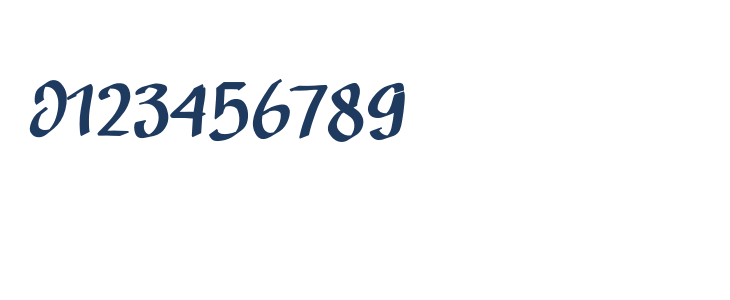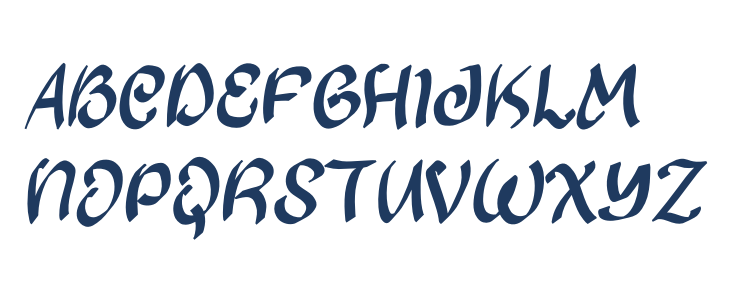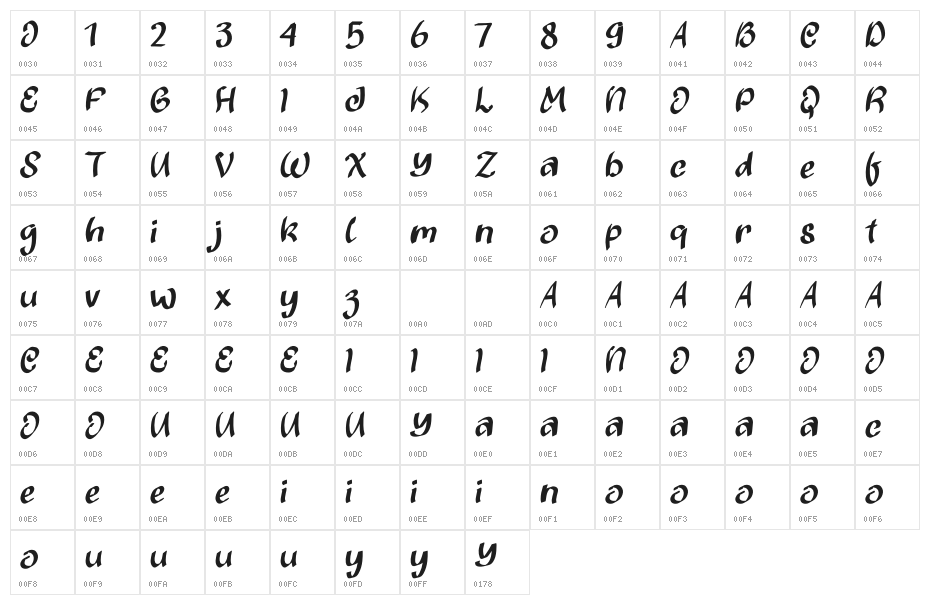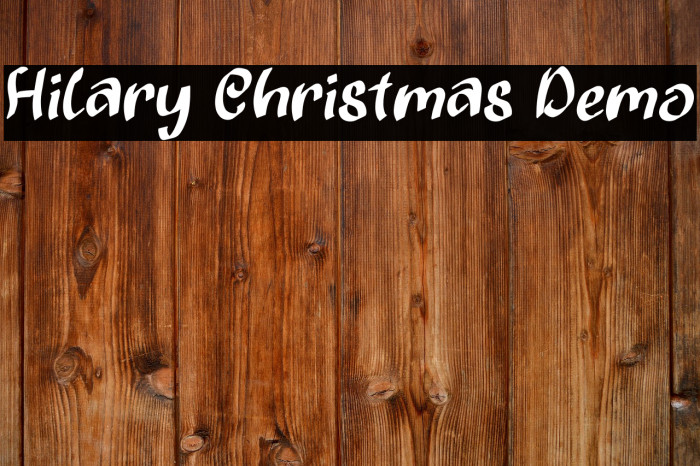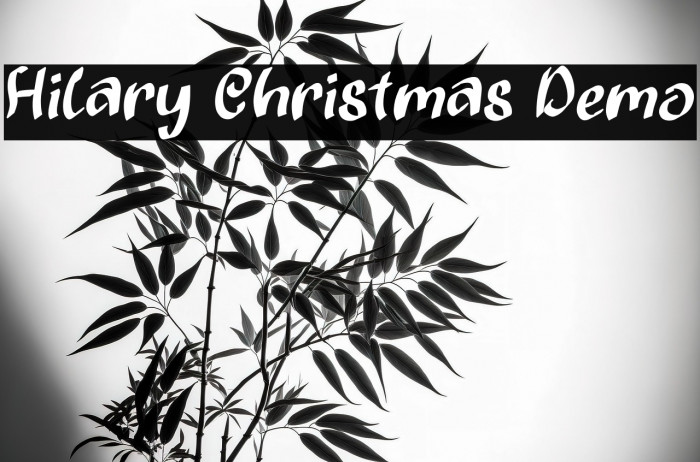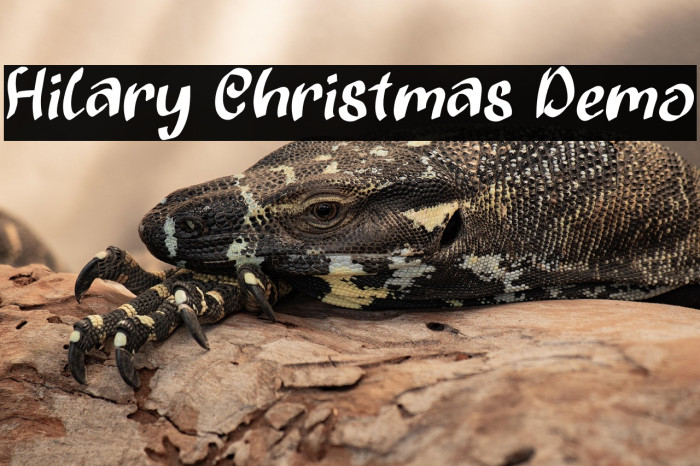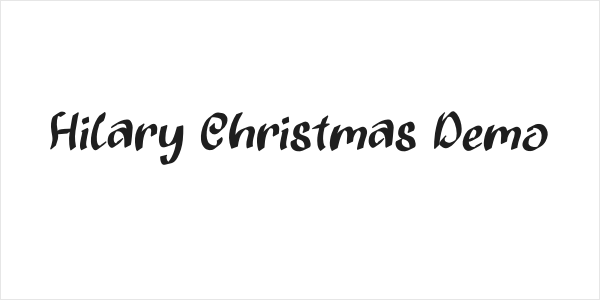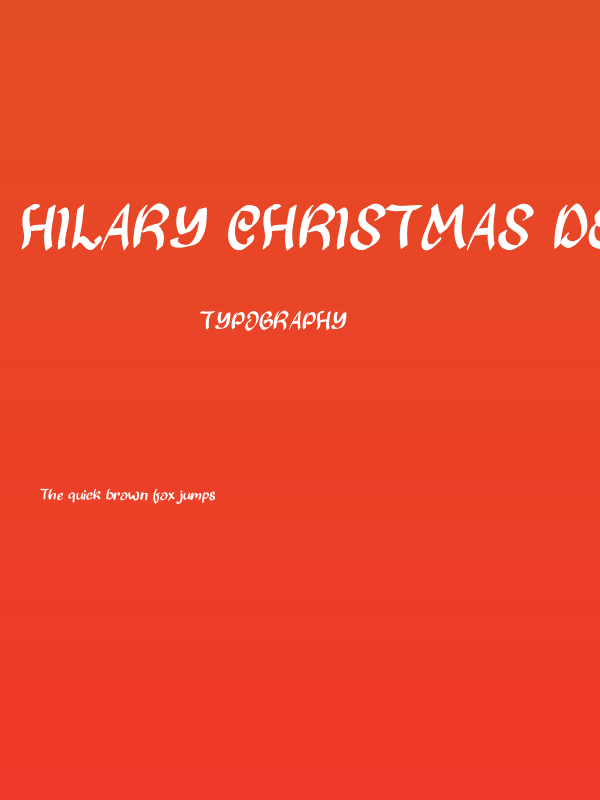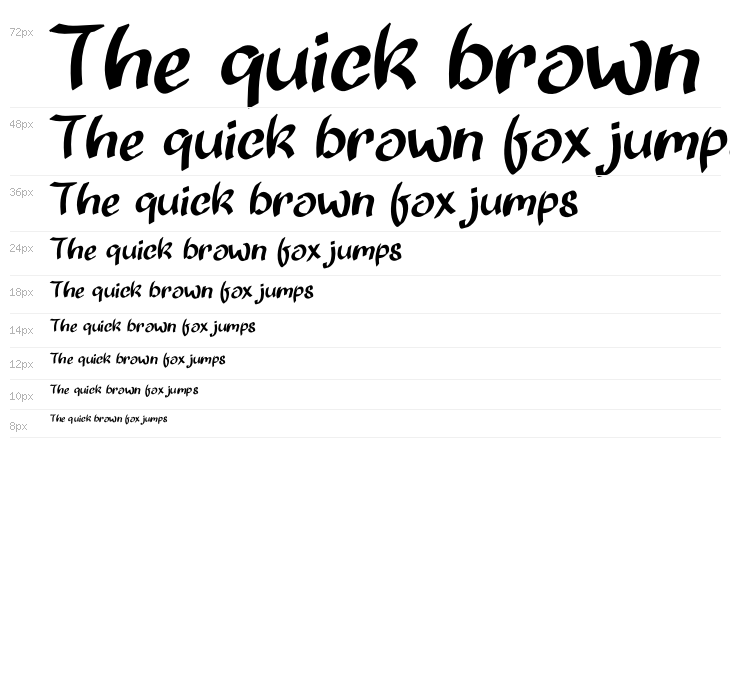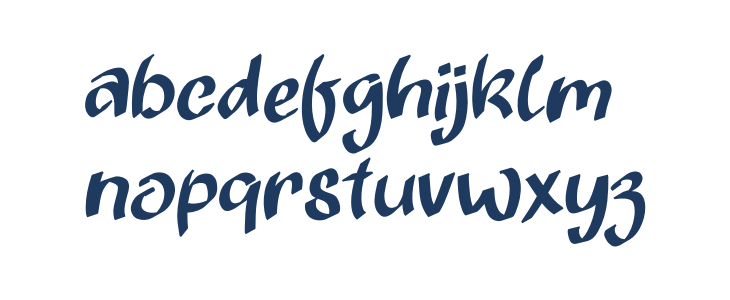
Hilary Christmas Demo Font
Hilary Christmas Demo Description
A bold, brush-script style font with flowing, calligraphic strokes and a festive, hand-drawn appearance. The characters have a dynamic slant and variable stroke thickness, giving a lively and decorative feel.
| Overall Style | Decorative, Festive, Handwritten |
| Use Case | Headlines, Logos, Greeting cards |
| Proposed Projects | Holiday cards, festive invitations, event posters, branding for seasonal products. |